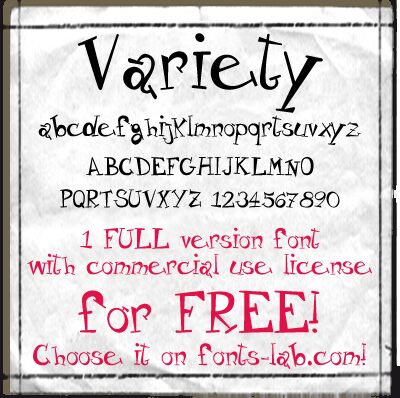
Variety from Fonts Lab is a free Celtic Gothic display font with tall, uneven letters and sharply changing stroke widths. Rounded forms lean into pointed cuts and crooked joins. The result feels lively and slightly unruly.
Packaging is a strong setting for its handmade, folkloric silhouette, especially on craft drinks or specialty foods. It also suits festival posters and music merchandise that draw on medieval or folk imagery. Those bent strokes and eccentric letterforms connect most directly with Celtic revival themes and theatrical fantasy.